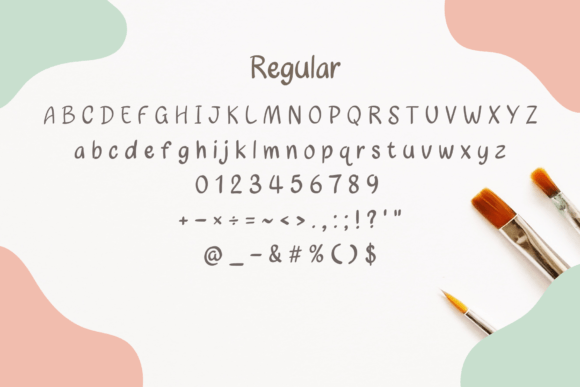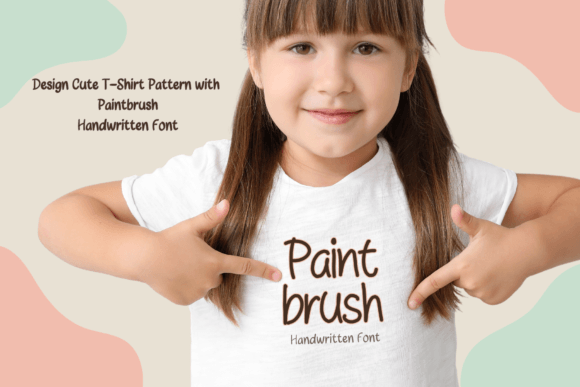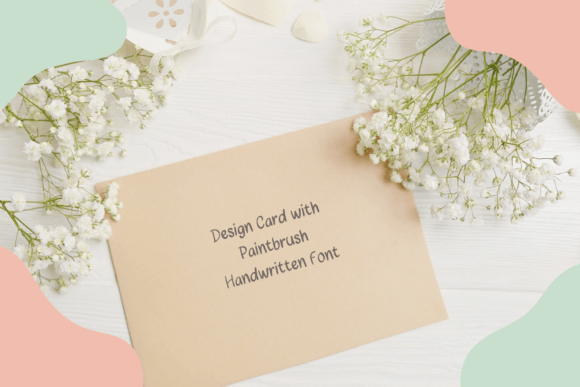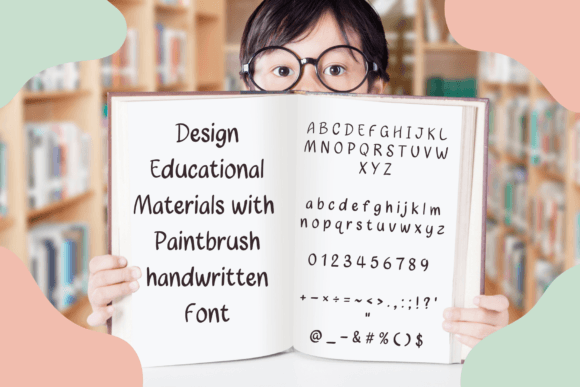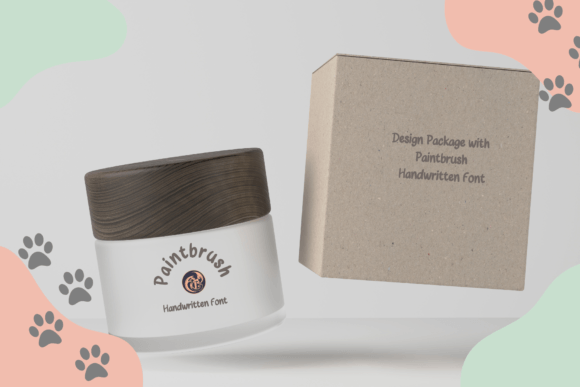
Introduction to Paintbrush Font
Have you ever sat at your desk, staring blankly at a blank piece of paper, trying to come up with the perfect idea for your next creative project? You’ve got a vision in your head, but it’s just not translating onto the page. That’s where the right design resource can make all the difference.
Enter the Paintbrush Font, a sweet and friendly handwritten font that’s sure to bring your creative ideas to life. With its natural and unique style, the Paintbrush Font is incredibly versatile and can be used in a wide range of designs, from greeting cards to signage. Whether you’re a seasoned designer or just starting out, the Paintbrush Font is a valuable addition to your design toolkit.
Key Features of Paintbrush Font
• High-quality design resource ideal for creative projects, offering a unique and artistic touch.
• Features a large character set, including uppercase and lowercase letters, numbers, and special characters.
• Perfect for use in digital art, graphic design, and creative projects where a distinctive, hand-painted look is desired.
Honest Review: Paintbrush Font
I recently stumbled upon the Paintbrush Font while searching for a design resource to add a unique touch to my creative project. I was excited to try it out and see if it would meet my expectations.
What works well: ✨ The Paintbrush Font has a distinctive, hand-drawn look that is perfect for adding a personal touch to any design. The font is highly customizable, allowing you to adjust the stroke width, texture, and even the brush type to suit your needs. I also appreciate that it’s a free download, making it an excellent choice for designers on a budget.
What doesn’t work so well: ⚠️ While the Paintbrush Font is a great design resource, it can be a bit tricky to use, especially for beginners. The font requires some practice to get the hang of it, and it can be time-consuming to create a consistent look. Additionally, the transparent background can be a bit finicky to work with, especially when combining it with other design elements.
Overall, I’m impressed with the Paintbrush Font. It’s a high-quality design resource that can add a unique touch to any creative project. While it may require some practice to master, the end result is well worth the effort.
• Unique, hand-drawn look
• Highly customizable
• Perfect for adding a personal touch to designs
Paintbrush Font: A Design Resource for Creative Projects
In Adobe Photoshop or Illustrator, you can import the Paintbrush Font as a custom font. This will allow you to use the font in your designs, taking advantage of its high-quality design and transparent background. The font’s versatility makes it suitable for a wide range of creative projects, from logos and branding to illustrations and typography-based designs.
To use the Paintbrush Font in PowerPoint or Word, you’ll need to install the font file on your computer. Once installed, you can select the font from the list of available fonts and apply it to your text. The font’s high-quality design and transparent background make it perfect for creating professional-looking presentations, reports, and documents.
Getting the Most Out of the Paintbrush Font
To get the most out of the Paintbrush Font, experiment with different font sizes, colors, and styles to find the perfect combination for your design. You can also use the font in conjunction with other design elements, such as images and graphics, to create visually appealing and effective designs.
The Paintbrush Font is a versatile design resource that can be used in a wide range of creative projects, including:
Logos and branding
Illustrations and typography-based designs
Social media posts and graphics
Presentation and report designs